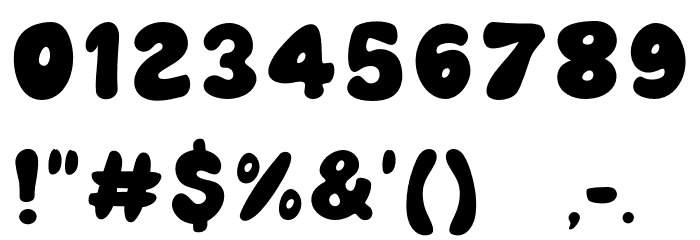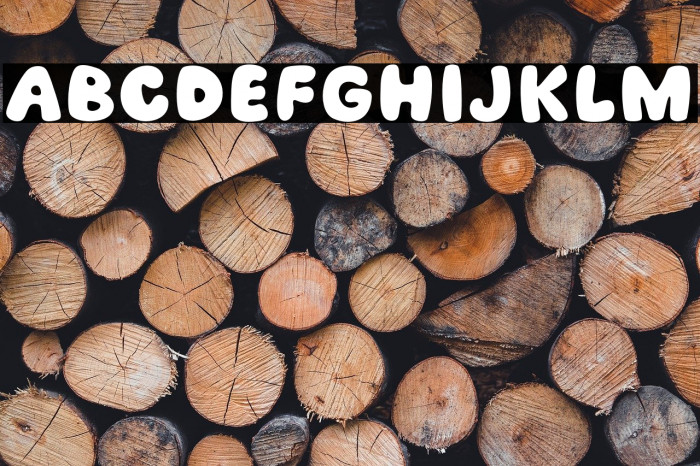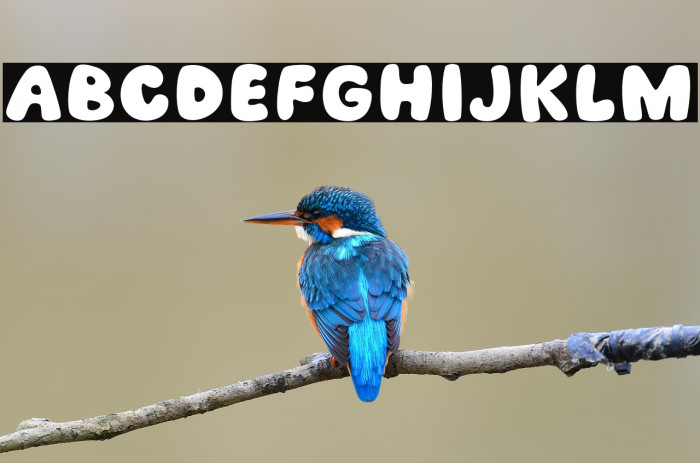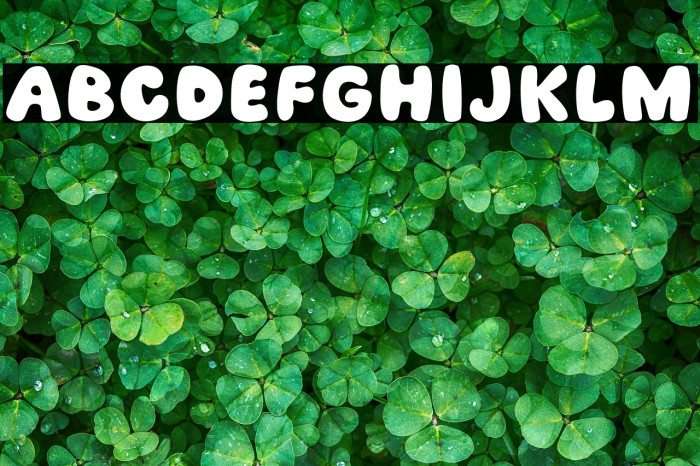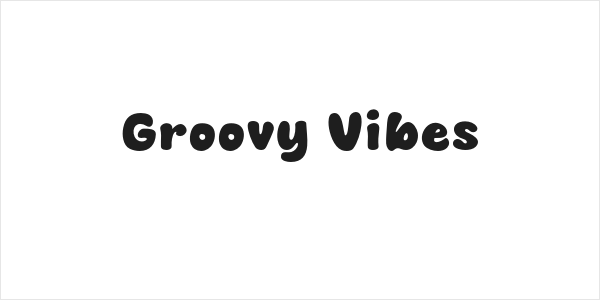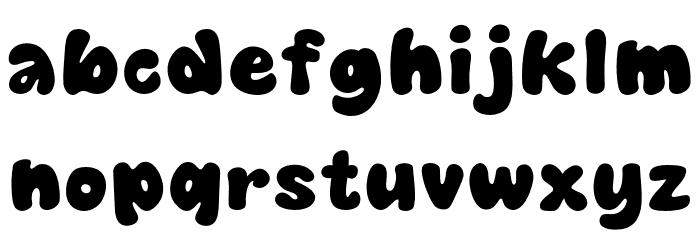
Groovy Vibes Font
Groovy Vibes Description
This font exudes a playful and retro vibe, characterized by its bold and rounded letterforms. The characters are thick and bubbly, giving off a sense of fun and nostalgia reminiscent of the 1960s and 70s design aesthetics. The uppercase and lowercase letters maintain a consistent style, with a slightly exaggerated width that enhances its whimsical appearance. The numerals and special characters follow the same design principles, ensuring a cohesive look across all glyphs. This font is perfect for projects that aim to capture a lively and carefree spirit.
Overall StyleRetro, Playful
Use CaseHeadlines, Logos, Posters
Proposed ProjectsIdeal for posters, music album covers, children's books, and branding that requires a fun and nostalgic touch.